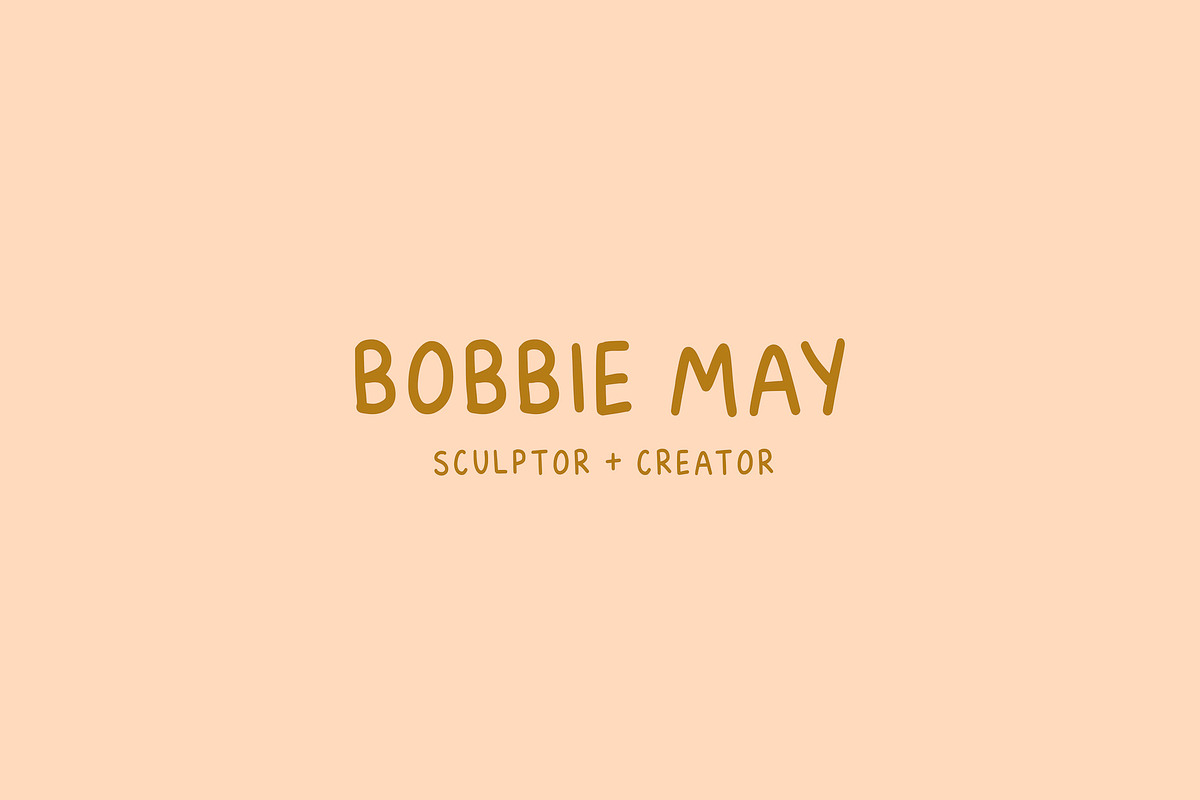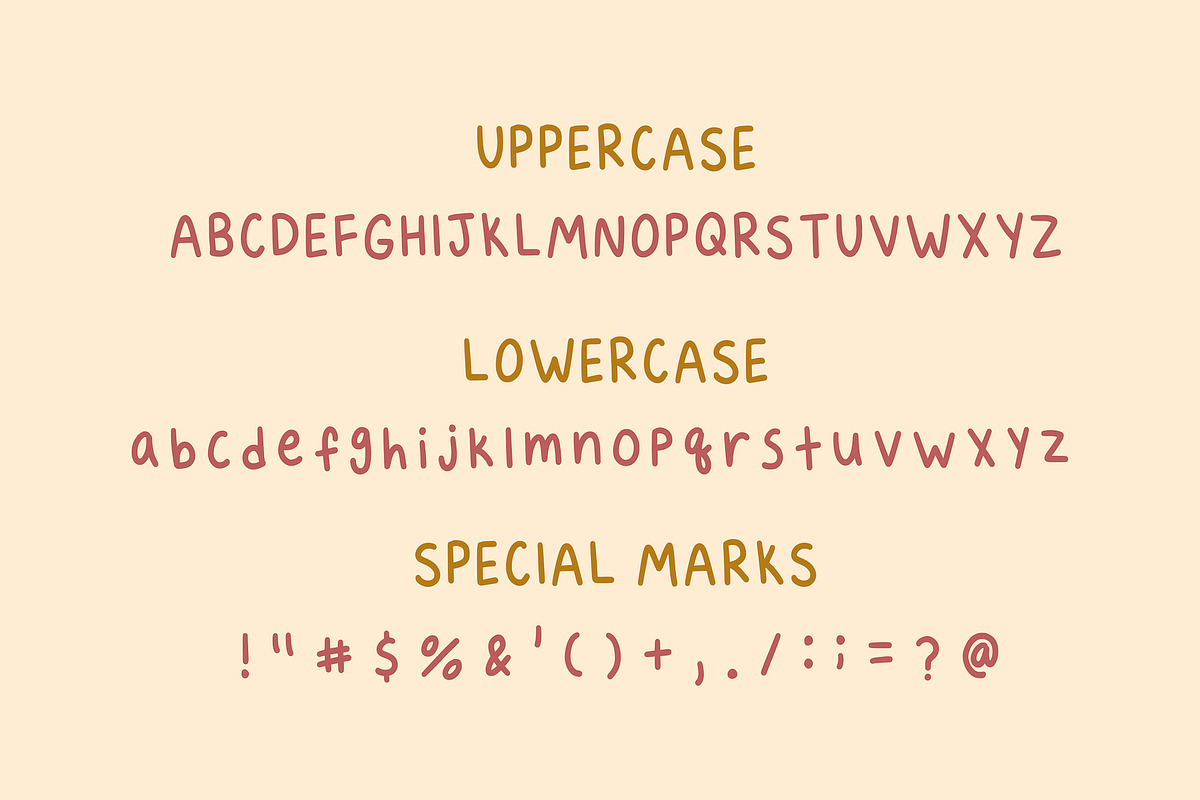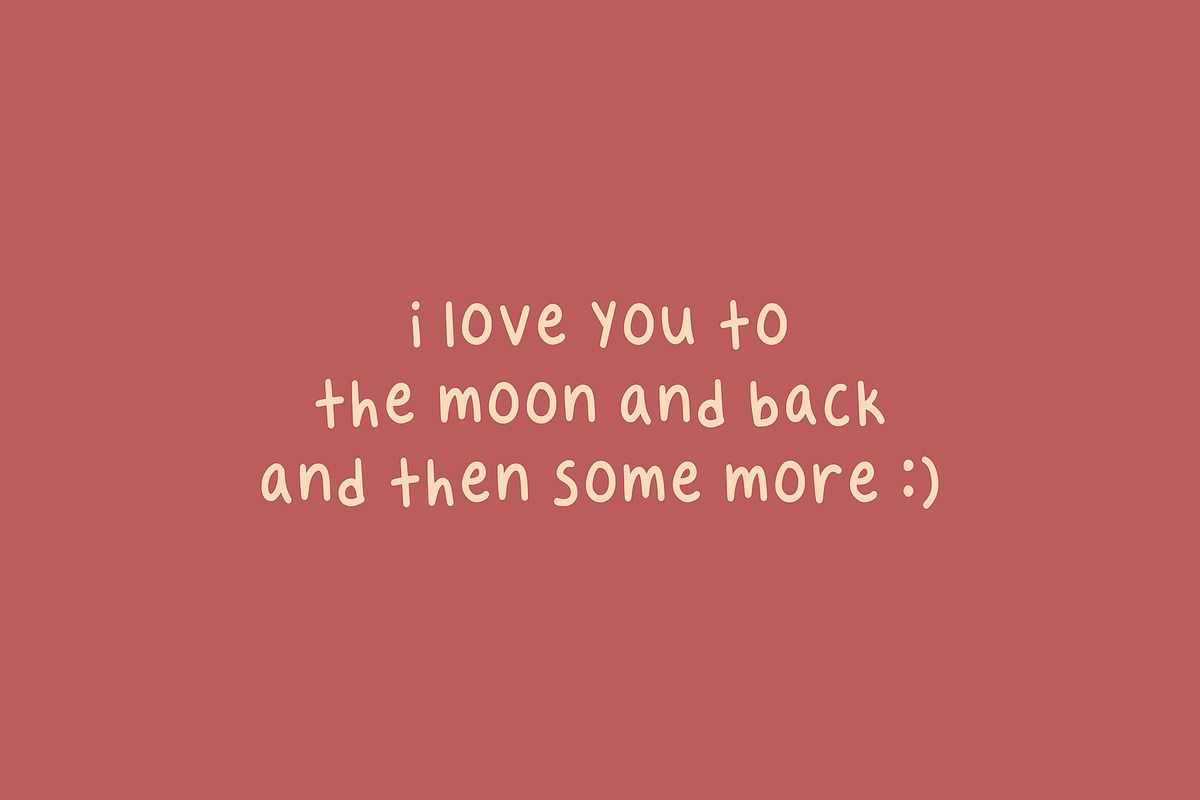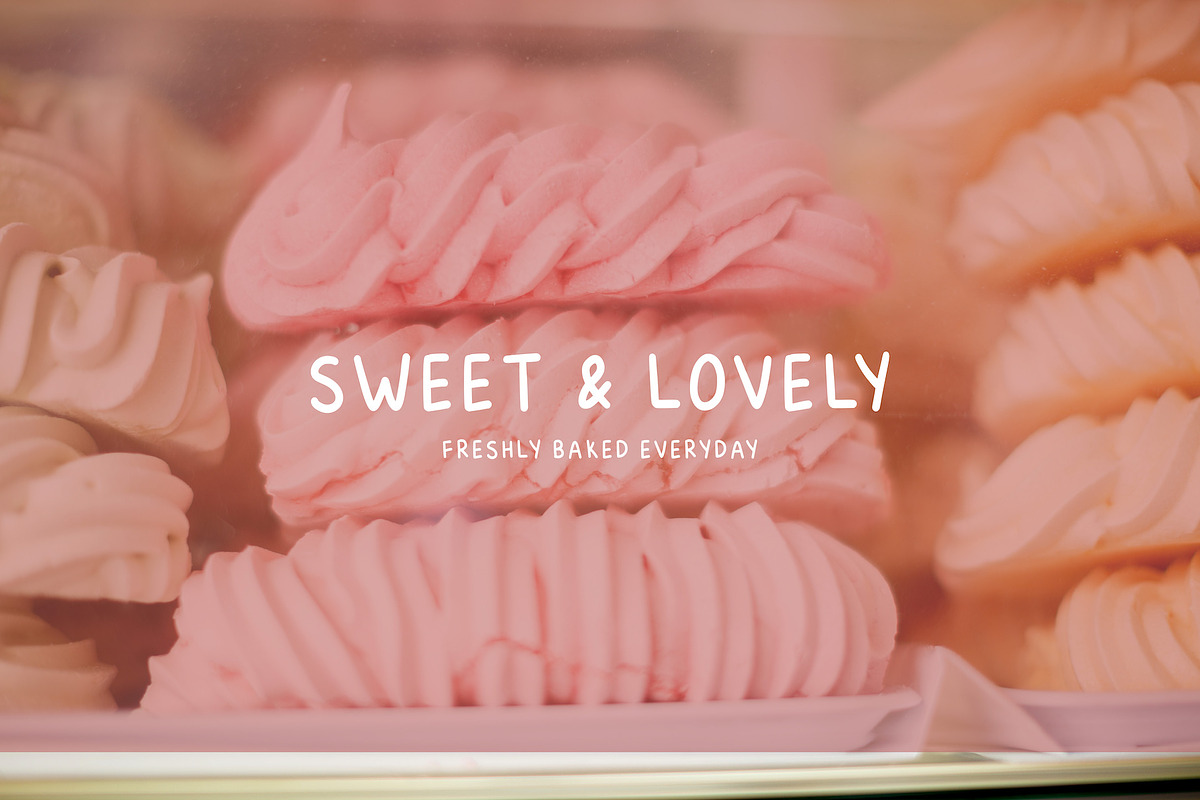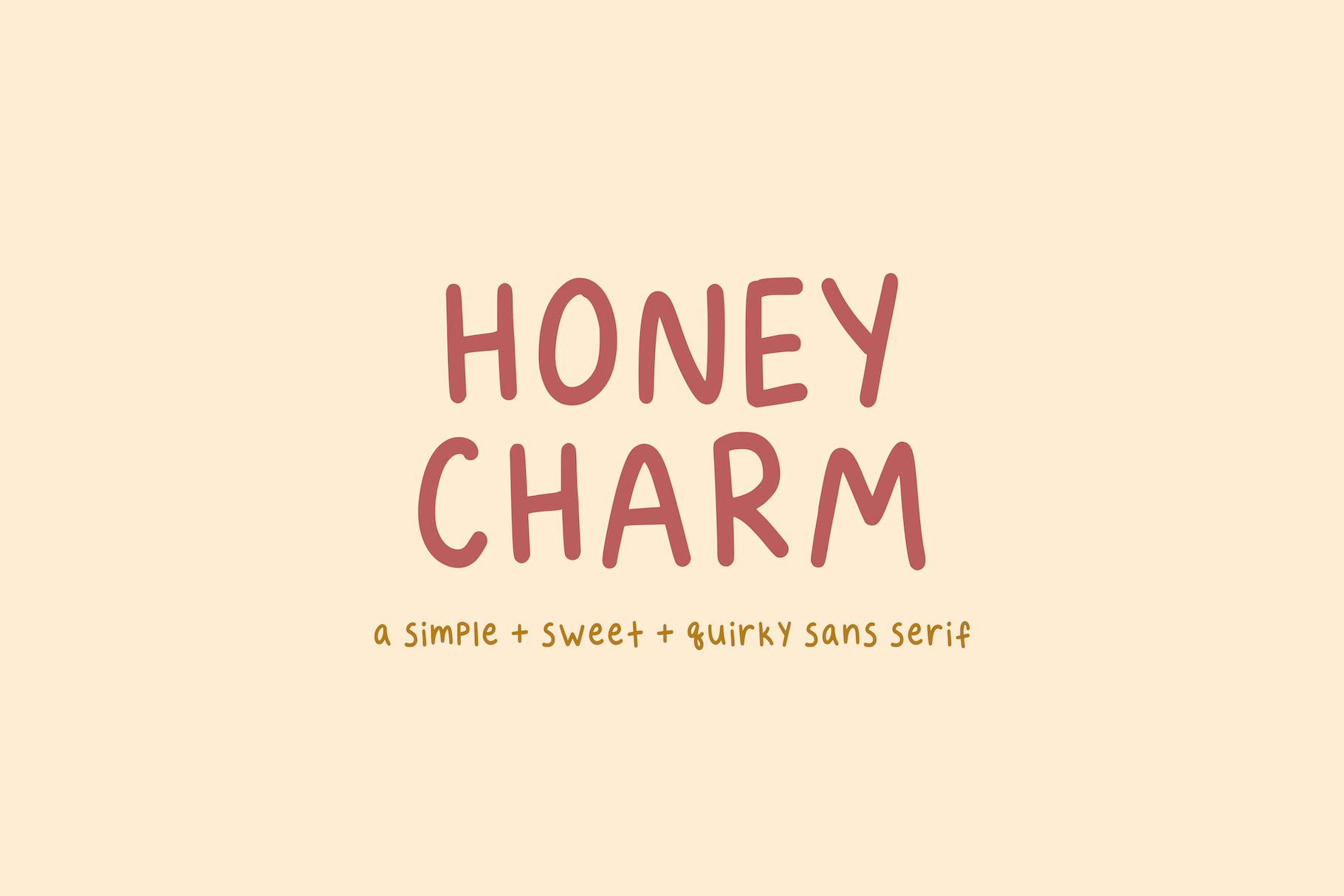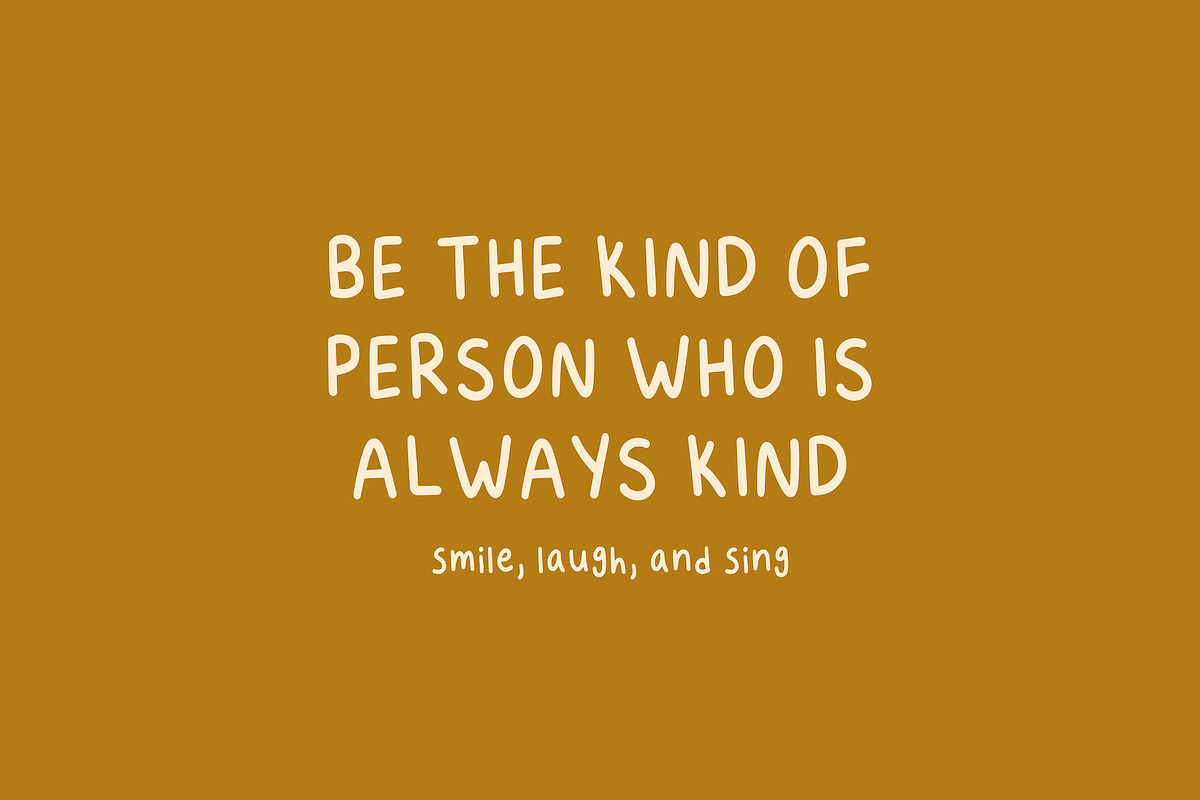
Honey Charm Handwritten Font
Introducing Honey Charm - a simple and cute handwritten font that is super versatile that has loads of personality! This font is perfect for logos, social media posts, headings, greeting cards, quotes, and so much more!
- Includes upper and lowercase letters
- Punctuations and special marks
- Looks great in texts and paragraphs